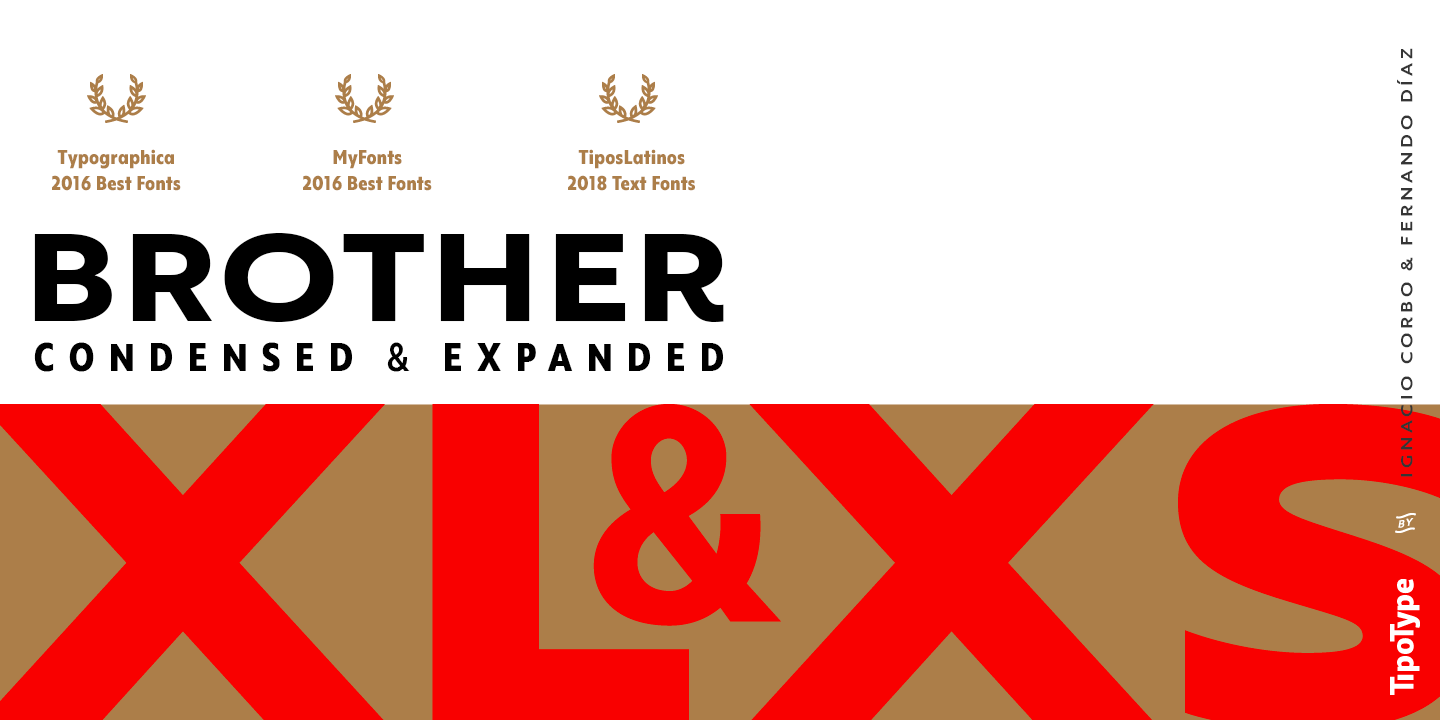
Brother XL&XS Font is perfect for modern tech startup branding, minimalist design projects, contemporary web interfaces, clean corporate communications, scalable logo design, versatile packaging systems, adaptive signage solutions, flexible marketing campaigns, responsive digital typography, and multi-format brand applications. This versatile typeface creates sophisticated scalability atmosphere in both digital platforms and variable print applications.
What makes Brother XL&XS Font exciting is its exceptional adaptability that seamlessly scales from extra-large headlines to extra-small body text while maintaining perfect readability and design integrity. The font features optimized letterforms with scalable proportions and adaptive character details that ensure consistent performance across all sizes. Its flexible design establishes an atmosphere of technological sophistication and design efficiency that resonates with modern audiences seeking versatile typography solutions.
Brother XL&XS Font family includes scalable variations: Extra Small, Small, Regular, Large, and Extra Large versions, each with adaptive alternates and scalable character sets. Each variant maintains the font's versatile personality while providing designers with flexible options for creating responsive typography systems and adaptive communication materials.
This exceptional scalable typeface brings authentic technological credibility to projects requiring adaptive presentation. Whether you're designing responsive brands, scalable interfaces, or multi-format marketing materials, Brother XL&XS Font Free Download delivers outstanding versatility and technological sophistication. The font's adaptive proportions and scalable details ensure optimal performance across various size applications.